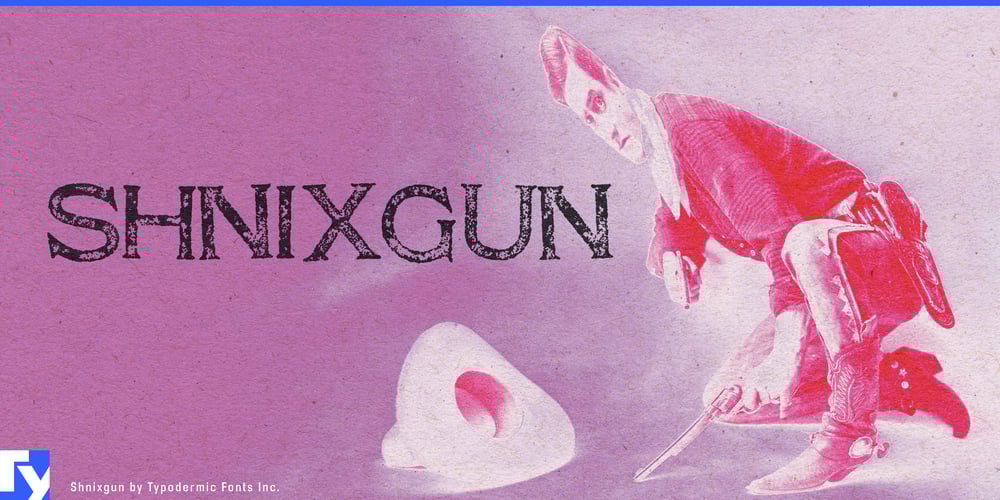
Shnixgun Font Family was designed by Ray Larabie and published by Typodermic. Shnixgun contains 1 styles and family package options. Step into the world of Shnixgun, a typeface that doesn’t just communicate—it resonates with the very soul of design. Inspired by the timeless Franklin Card Gothic, Shnixgun reimagines typography as a fusion of industrial grit and artistic finesse.Each character bears the marks of a journey through decades, its rusty patina telling stories of resilience and character. Shnixgun doesn’t imitate age—it embodies it, transforming your text into a tactile experience that begs to be touched and explored. But Shnixgun’s beauty goes beyond skin deep. Its ingenious custom letter pairs breathe life into your words, breaking the monotony of repetitive characters with an organic flow that mimics the imperfections of vintage metal type. This subtle dance of letterforms creates a rhythm in your text, turning even the most mundane message into a visual symphony.From artisanal product packaging to cutting-edge editorial layouts, Shnixgun adapts with chameleon-like versatility. It lends gravitas to corporate communications, infuses warmth into lifestyle branding, and adds an edge to contemporary art catalogues. Each application reveals a new facet of Shnixgun’s complex personality. Shnixgun’s linguistic prowess is equally impressive. It fluently expresses itself across a vast spectrum of Latin-based European writing systems, from Afaan Oromo to Zuni. This extensive language support ensures your message retains its rugged charm across cultures, bridging divides with its universal appeal.Choose Shnixgun, and watch as your typography transforms from mere words into a rich, textured narrative. It’s a statement, a philosophy, a rebellion against the sterile and soulless.